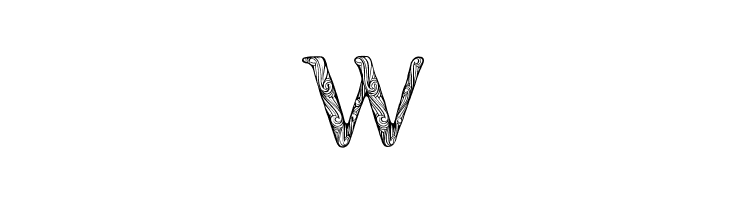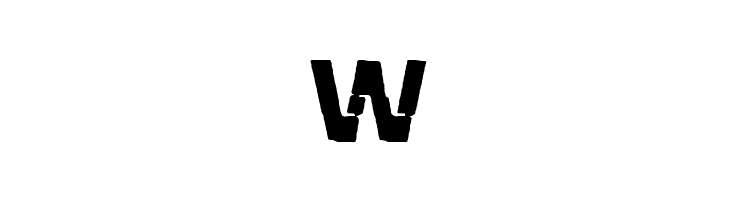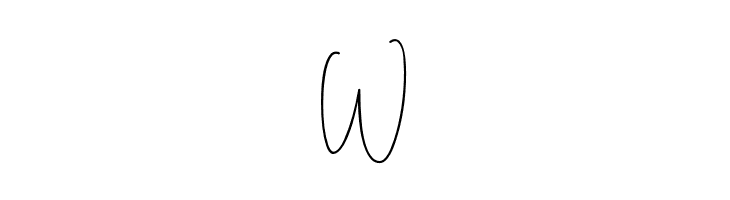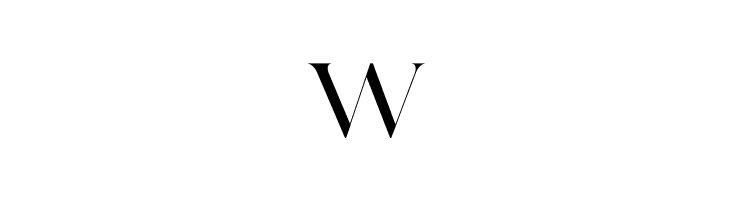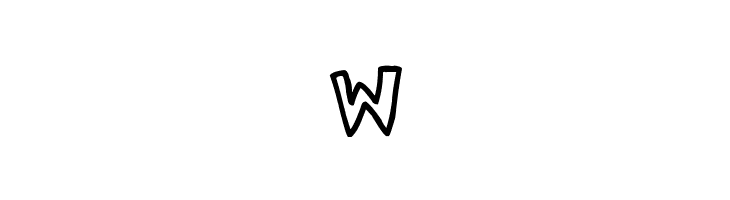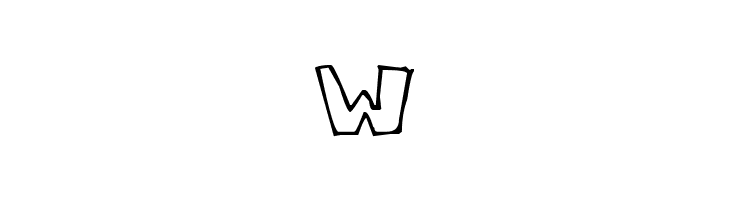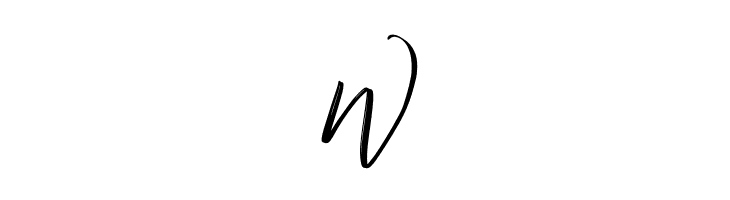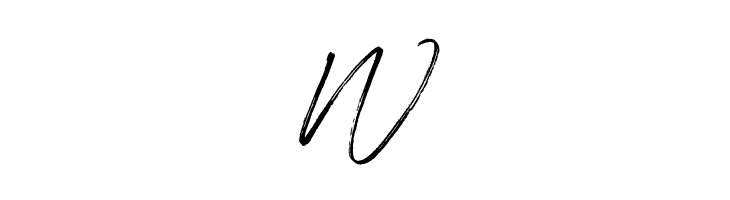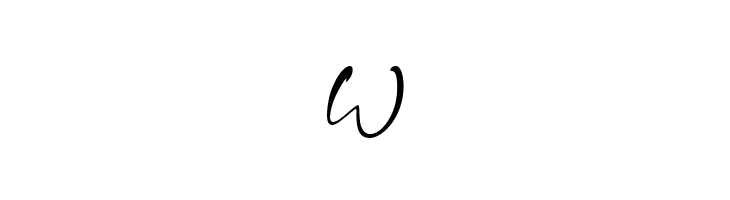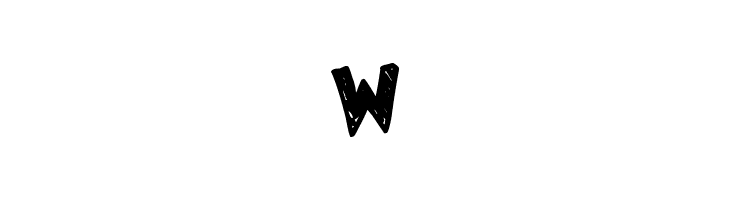
A classic serif font with elegant lines and a traditional, sophisticated appearance.
An elegant outline serif font with precise lines and classic styling.
A bold, gothic-style blackletter font with intricate details and a medieval flair.
A bold, Gothic blackletter font with intricate detailing and a historic feel.
A sleek, modern font with thin, elongated strokes and geometric precision.
A sleek, modern oblique font with thin strokes and dynamic slant.
A refined serif font with high contrast and elegant curves.
A playful, bubbly font with irregular, organic shapes and a whimsical style.
A dynamic, flowing script font with elegant cursive letterforms.
A modern, elegant handwritten font with fluid strokes and a sophisticated style.
A bold, glitch-effect font with a modern, edgy style.
Playful handwritten font with rounded edges.
A playful, casual handwritten font with fluid strokes and a lively feel.
A playful, casual handwritten font with smooth, flowing lines.
A fluid and dynamic handwritten font with smooth curves and natural elegance.
A flowing, cursive script font with elegant, interconnected letters.
A dynamic, cursive script font with flowing, interconnected letters and varied stroke weights.
A bold, modern typeface with clean lines and a slightly condensed structure.
A decorative font with intricate, hand-drawn style and vintage elegance.
Illustrative font with each character depicted as a unique monument, symbol, or figure.
A bold, elegant script font with flowing, cursive design.
A dynamic, expressive handwritten font with fluid, sweeping strokes.
A playful, hand-drawn font with bold outlines and a cartoonish style.
A playful, hand-drawn font with bold, uneven strokes and a whimsical charm.
Hand-drawn, doodle-style dingbat illustrations with a playful vibe.
A playful, hand-drawn font with bold outlines and a cartoonish style.
A bold, sketchy, hand-drawn font with a playful and artistic style.